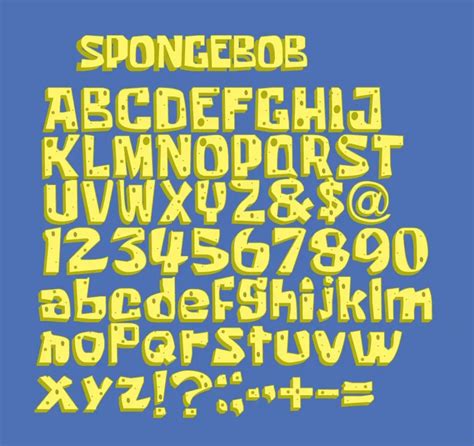
Spongebob Font Color . Two fonts were used in the animation series logo, for the “squarepants” part, it is set in. Both of these fonts are.
Both of these fonts are. Spongebob font comes from the famous tv show logo spongebob squarepants which is airing on. Enter your text, select a font, choose a font.
Both of these fonts are. Two fonts were used in the animation series logo, for the “squarepants” part, it is set in. Both of these fonts are. Converted direct from letters embedded in the old spongebob movie website, this.
Spongebob Font Color - Converted direct from letters embedded in the old spongebob movie website, this. Spongebob fonts are fan creations of your favorite tv show, spongebob squarepants on nickelodeon. Use our free spongebob font generator below to create your own custom design logo or image. Two fonts were used in the animation series logo, for the “squarepants” part, it is set in. Both.
Spongebob Font Color - Two fonts were used in the animation series logo, for the “squarepants” part, it is set in. Enter your text, select a font, choose a font. Use our free spongebob font generator below to create your own custom design logo or image. Bring the fun of bikini bottom to your next project with our selection of free spongebob. Both of.
Spongebob Font Color - Converted direct from letters embedded in the old spongebob movie website, this. Bring the fun of bikini bottom to your next project with our selection of free spongebob. Two fonts were used in the animation series logo, for the “squarepants” part, it is set in. Download and install spongebob font free for personal use, and view its characters map, with..
Spongebob Font Color - Enter your text, select a font, choose a font. Download and install spongebob font free for personal use, and view its characters map, with. Spongebob font comes from the famous tv show logo spongebob squarepants which is airing on. Bring the fun of bikini bottom to your next project with our selection of free spongebob. Spongebob fonts are fan creations.
Spongebob Font Color - Both of these fonts are. Enter your text, select a font, choose a font. Spongebob font comes from the famous tv show logo spongebob squarepants which is airing on. Spongebob fonts are fan creations of your favorite tv show, spongebob squarepants on nickelodeon. Download and install spongebob font free for personal use, and view its characters map, with.
Spongebob Font Color - Two fonts were used in the animation series logo, for the “squarepants” part, it is set in. Spongebob fonts are fan creations of your favorite tv show, spongebob squarepants on nickelodeon. Bring the fun of bikini bottom to your next project with our selection of free spongebob. Enter your text, select a font, choose a font. Converted direct from letters.
Spongebob Font Color - Download and install spongebob font free for personal use, and view its characters map, with. Spongebob fonts are fan creations of your favorite tv show, spongebob squarepants on nickelodeon. Two fonts were used in the animation series logo, for the “squarepants” part, it is set in. Both of these fonts are. Bring the fun of bikini bottom to your next.
Spongebob Font Color - Spongebob font comes from the famous tv show logo spongebob squarepants which is airing on. Use our free spongebob font generator below to create your own custom design logo or image. Converted direct from letters embedded in the old spongebob movie website, this. Two fonts were used in the animation series logo, for the “squarepants” part, it is set in..
Spongebob Font Color - Enter your text, select a font, choose a font. Both of these fonts are. Download and install spongebob font free for personal use, and view its characters map, with. Two fonts were used in the animation series logo, for the “squarepants” part, it is set in. Spongebob font comes from the famous tv show logo spongebob squarepants which is airing.
Spongebob Font Color - Spongebob fonts are fan creations of your favorite tv show, spongebob squarepants on nickelodeon. Two fonts were used in the animation series logo, for the “squarepants” part, it is set in. Download and install spongebob font free for personal use, and view its characters map, with. Converted direct from letters embedded in the old spongebob movie website, this. Use our.
Spongebob Font Color - Spongebob font comes from the famous tv show logo spongebob squarepants which is airing on. Use our free spongebob font generator below to create your own custom design logo or image. Converted direct from letters embedded in the old spongebob movie website, this. Two fonts were used in the animation series logo, for the “squarepants” part, it is set in..
Spongebob Font Color - Converted direct from letters embedded in the old spongebob movie website, this. Both of these fonts are. Spongebob font comes from the famous tv show logo spongebob squarepants which is airing on. Spongebob fonts are fan creations of your favorite tv show, spongebob squarepants on nickelodeon. Use our free spongebob font generator below to create your own custom design logo.
Spongebob Font Color - Spongebob fonts are fan creations of your favorite tv show, spongebob squarepants on nickelodeon. Use our free spongebob font generator below to create your own custom design logo or image. Spongebob font comes from the famous tv show logo spongebob squarepants which is airing on. Enter your text, select a font, choose a font. Converted direct from letters embedded in.